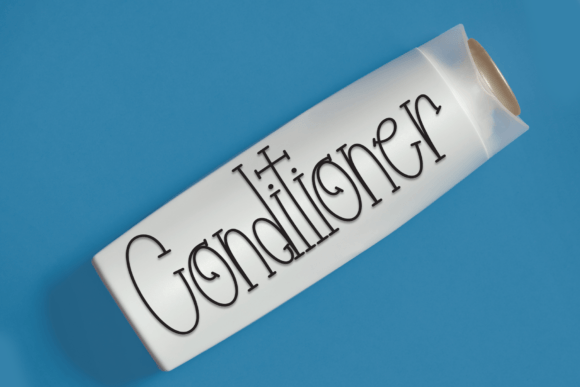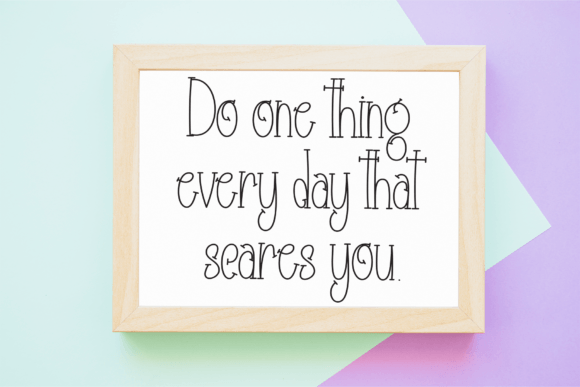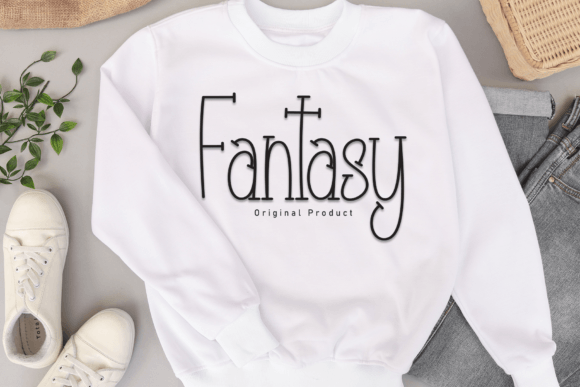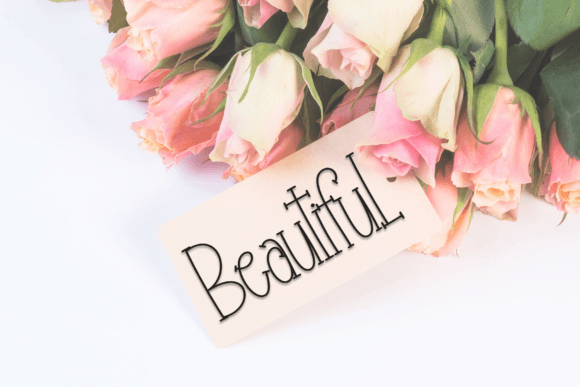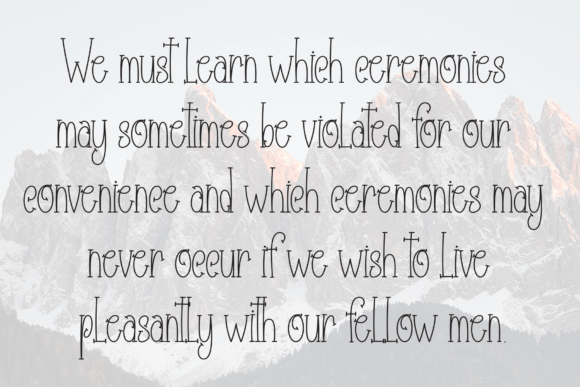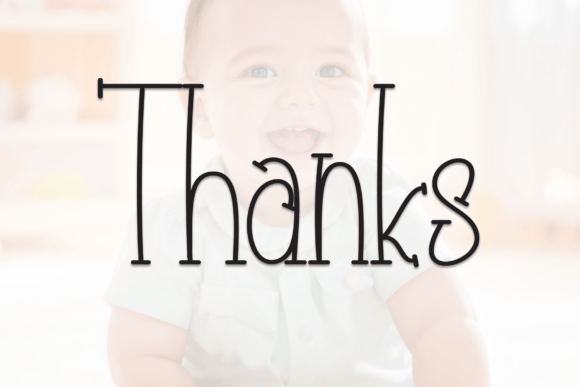
Discover the Joy of Design with Baby Cute Font
Have you ever found yourself lost in a sea of creative possibilities, searching for that perfect font to make your project truly special? Maybe it’s a wedding invitation that needs a dash of whimsy, or a birthday card that requires a pinch of personality. Whatever the occasion, we’ve got just the thing – a font that will make your heart skip a beat.
Meet the Baby Cute Font, a charming and approachable handwritten display font that’s sure to bring a smile to your face. Its joyful character makes it a delightful choice for any design project that needs a jubilant touch. Whether you’re a seasoned designer or just starting out, this font is a valuable addition to your toolkit – it’s perfect for creating memorable designs that will leave a lasting impression.
Baby Cute Font Key Features
- Font Style: A playful, cursive font designed to convey a sense of cuteness and innocence.
- Unique Characteristics: Features a distinctive, hand-drawn feel with subtle flourishes and irregularities, giving it a personal and endearing touch.
Designer Review: Baby Cute Font
I recently had the chance to work with the “Baby Cute Font” and I have mixed feelings about it. On one hand, I found some aspects of it to be quite charming. ✨ The font has a playful and whimsical feel to it, which can be perfect for designs targeting a younger audience or for projects that need a touch of cuteness.
Some of the things that I liked about the font include:
- Its versatility: The font can be used for a wide range of projects, from greeting cards to children’s book illustrations.
- Its high legibility: The font is easy to read, even at smaller sizes.
- Its customizability: The font can be customized to fit the tone and style of your project.
However, I also found some limitations to the font. ⚠️ The font is not ideal for professional or formal projects, as it may come across as too childish or playful. Additionally, the font may not be suitable for text-heavy projects, as the characters can be quite ornate and may not fit well in tight spaces.
Overall, I would say that the “Baby Cute Font” is a fun and playful option that can be useful for the right project. However, it’s not a font that I would use for every project, and it’s definitely not suitable for every audience.
Baby Cute Font is ideal for:
– Children’s book covers and illustrations
– Social media posts and graphics for baby-related businesses
– Baby shower invitations and decorations
– Cuteness-themed merchandise and branding